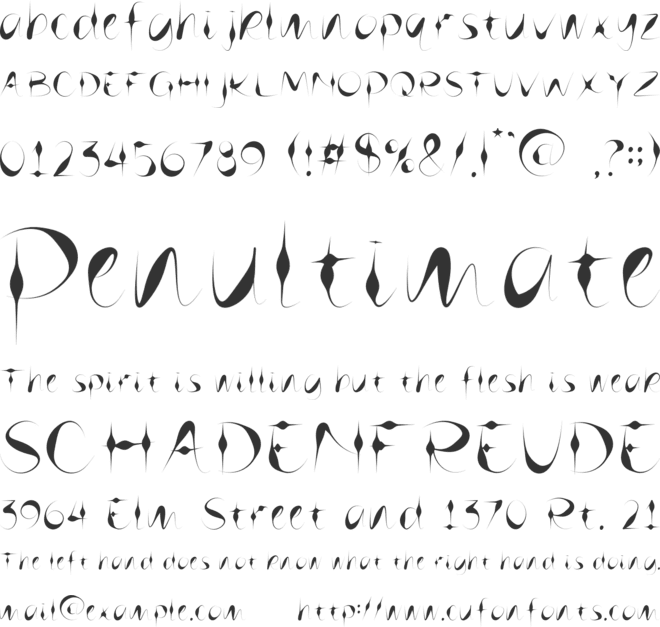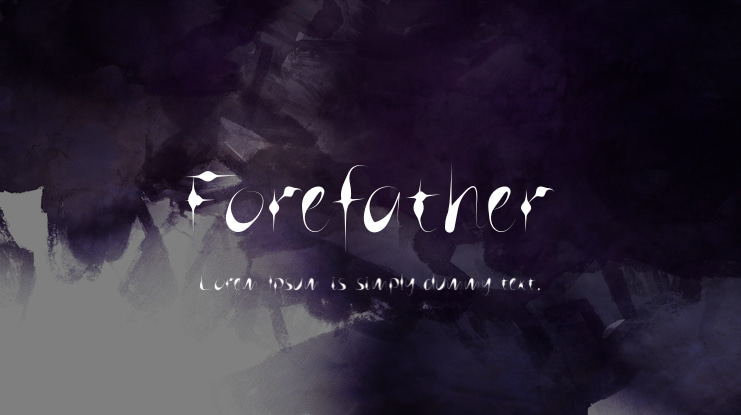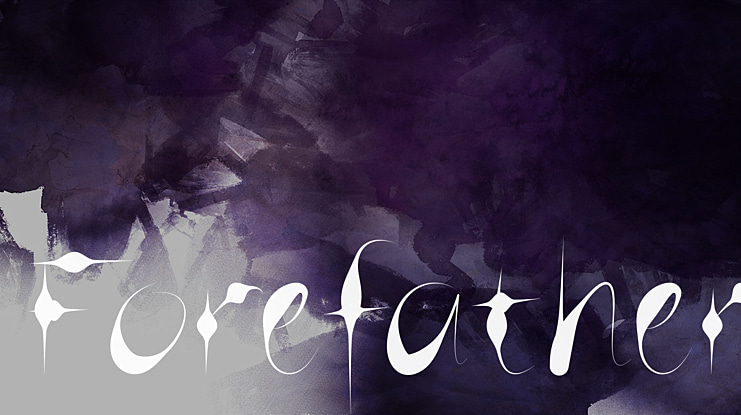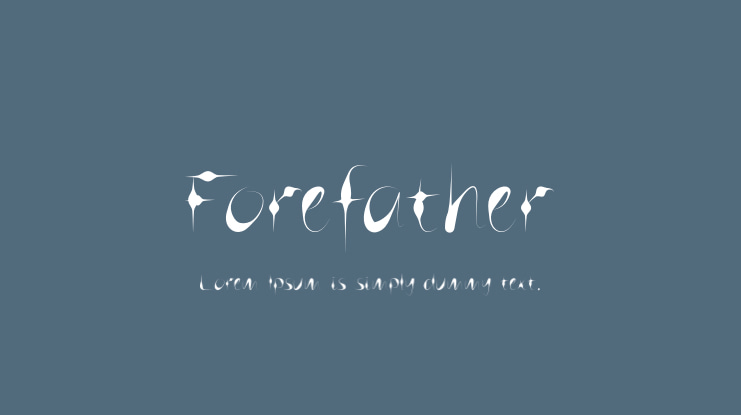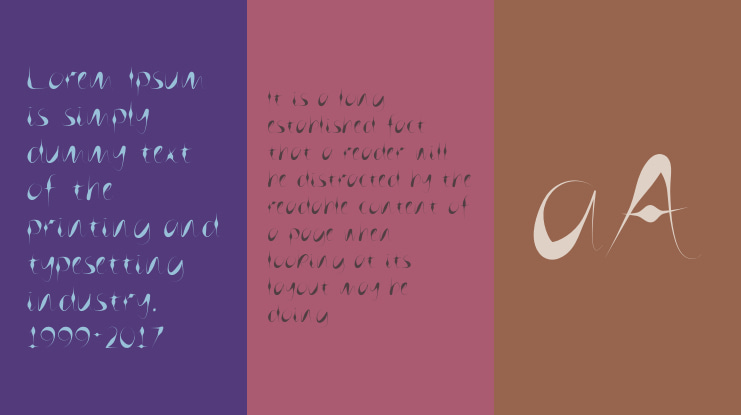
Forefather Font
Forefather is an uniquely shaped display font. it will look stunning on any design that you wish to bring to life. Add it confidently to your projects, and you will love the results.
Muhammad Nashrul Aziz